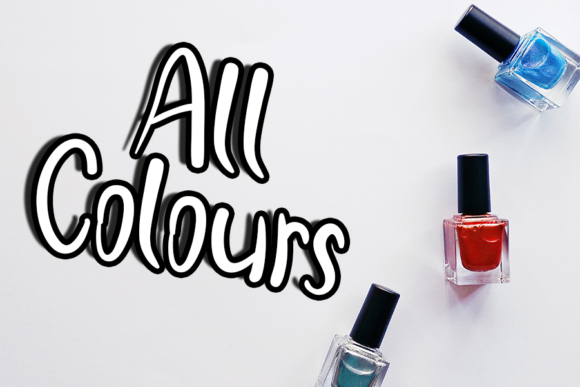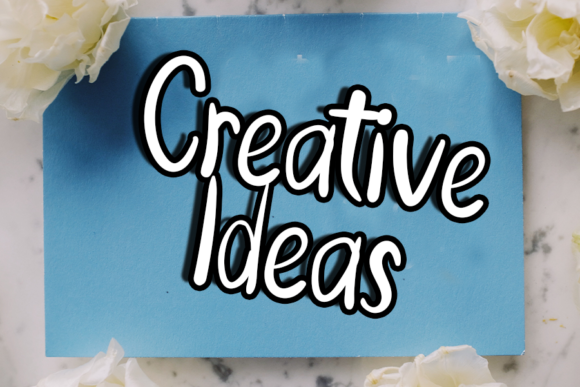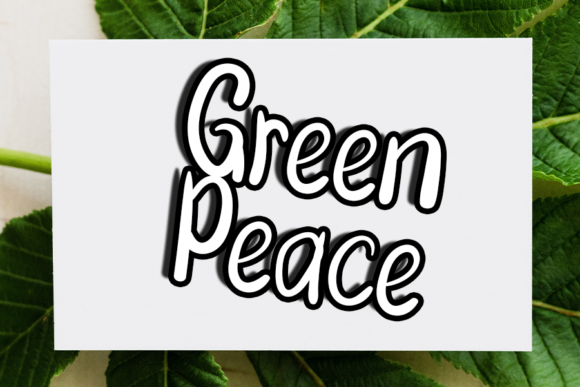
Simple Love Font
About Simple Love Font
Simple Love is a bold and cute handwritten font. Use it for any design projects that require a unique appearance!